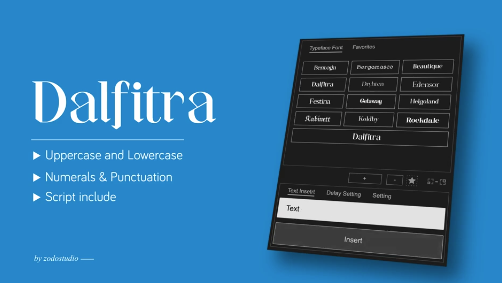
Free Animated Typeface – Dalfitra is a creative typography template designed for adding expressive animated lettering and distinctive text treatments to modern video projects. It combines the visual character of a display typeface with motion-based presentation, making it useful for editors, designers, filmmakers, and content creators.
The Free Animated Font style can be used for headlines, titles, names, quotes, slogans, campaign messages, captions, and other important text. Combine animated typography with photographs, video footage, illustrations, backgrounds, music, and sound effects to create visually interesting compositions.
Customize the available text, typography, timing, positioning, colors, backgrounds, and other editable elements according to your project's requirements. Add your own footage, photographs, logos, music, and sound effects to create a personalized animated typography sequence.
Use this Free Animated Typeface template to turn words and headlines into distinctive motion graphics and create stylish, engaging, and memorable typography-based video content.
This Free Animated Typeface template is ideal for video editors, motion designers, graphic designers, YouTube creators, social media creators, filmmakers, marketers, and creative agencies who want to make typography a stronger visual part of their videos. Animated lettering can help transform simple words into engaging motion graphics.
Use this Free Dalfitra Typeface template for title sequences, social media videos, YouTube intros, promotional content, advertisements, music videos, fashion videos, event promos, branding projects, presentations, and creative motion graphics.
The Free Animated Font style can be used for headlines, titles, names, quotes, slogans, campaign messages, captions, and other important text. Combine animated typography with photographs, video footage, illustrations, backgrounds, music, and sound effects to create visually interesting compositions.
YouTube creators can use the Free Typography Animation for channel intros, video titles, storytelling sequences, tutorials, entertainment content, lifestyle videos, music content, and promotional projects. Animated text can help establish a distinctive visual identity across recurring videos.
Social media creators can incorporate the Free Text Animation into Instagram Reels, YouTube Shorts, promotional posts, advertisements, and other short-form content. Use animated lettering to emphasize hooks, quotes, announcements, calls to action, or key messages.
Designers and branding professionals can use the Free Animated Typography for logo-style text treatments, campaign visuals, brand presentations, promotional graphics, event branding, and creative identity projects. Combine the typography with your own colors, imagery, and branding elements to create a customized visual direction.
Music artists and filmmakers can use the Free Display Typeface style for music videos, lyric videos, album promotions, title sequences, cinematic projects, artist branding, and entertainment content. Typography can become an important visual component alongside footage and sound.
Customize the available text, typography, timing, positioning, colors, backgrounds, and other editable elements according to your project's requirements. Add your own footage, photographs, logos, music, and sound effects to create a personalized animated typography sequence.
Freelancers, motion designers, and creative agencies can use this Free After Effects Template as a foundation for client projects. Adapt the animated type treatment for fashion brands, events, advertisements, digital campaigns, social media content, music projects, and promotional videos.
The Free Motion Typography approach can also be useful for educational videos, presentations, motivational content, quote videos, explainer sequences, and digital advertisements where strong typography helps communicate information clearly.
Whether you're creating a YouTube intro, Instagram Reel, music video, fashion campaign, promotional advertisement, brand presentation, cinematic title sequence, or creative social media project, this Free Animated Typeface – Dalfitra template provides a flexible way to add expressive animated lettering to your content.